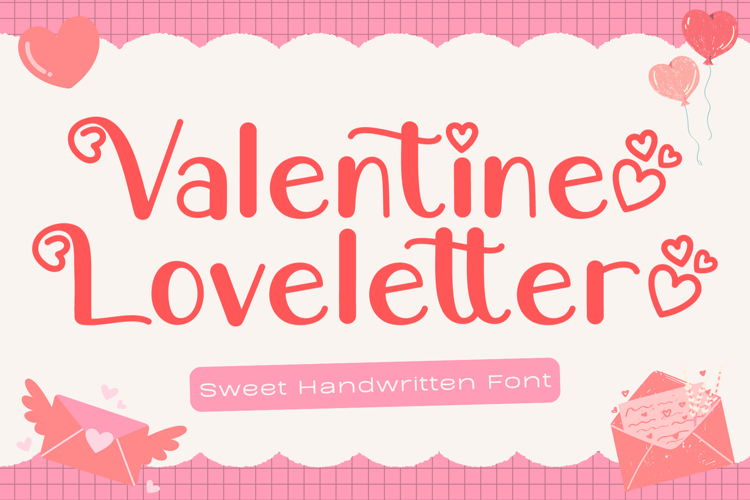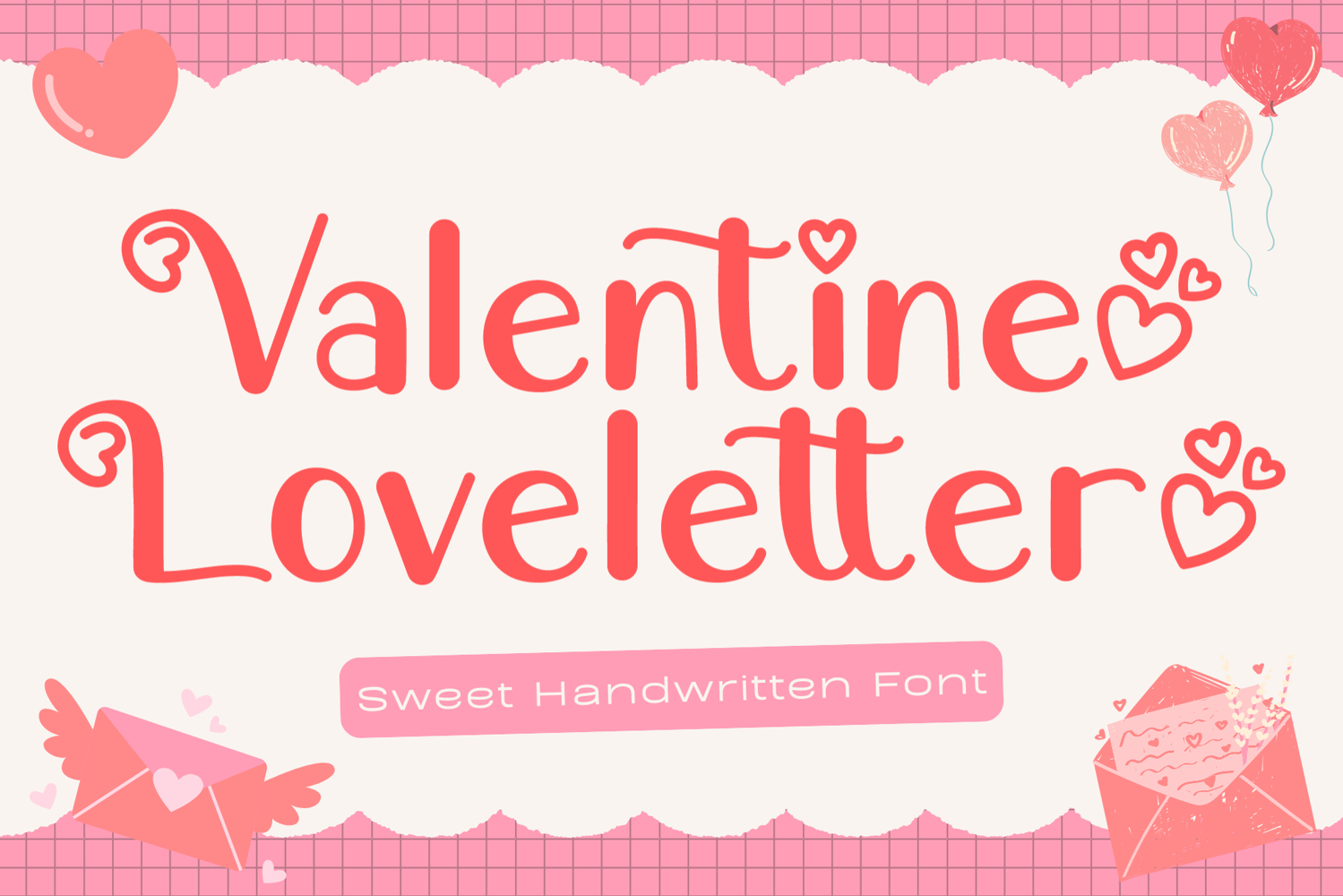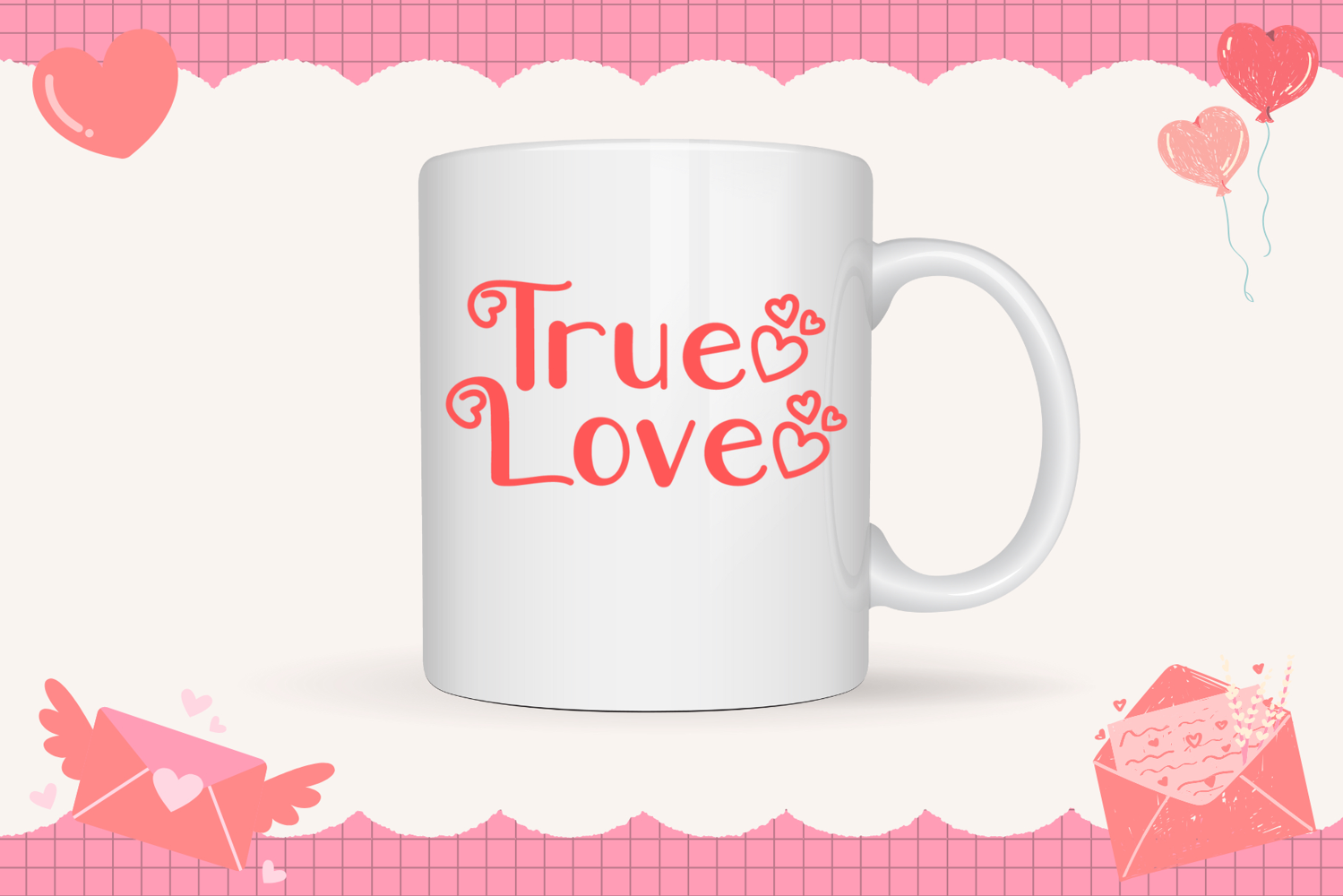
Valentine Loveletter
Valentine Loveletter is a modern handwritten display font designed with clean strokes, simple structure, and a romantic spirit. It delivers the perfect balance between elegance and playfulness, making it a versatile choice for Valentine cards, mugs, scrapbooking pages, and digital craft projects. With its charming handmade feel and delightful details, Valentine Loveletter brings sincerity and sweetness to your designs, making even the simplest phrase look heartfelt and meaningful.
Valentine Loveletter Features :
- (a-z) titling, (a-z) swashes, ligatures